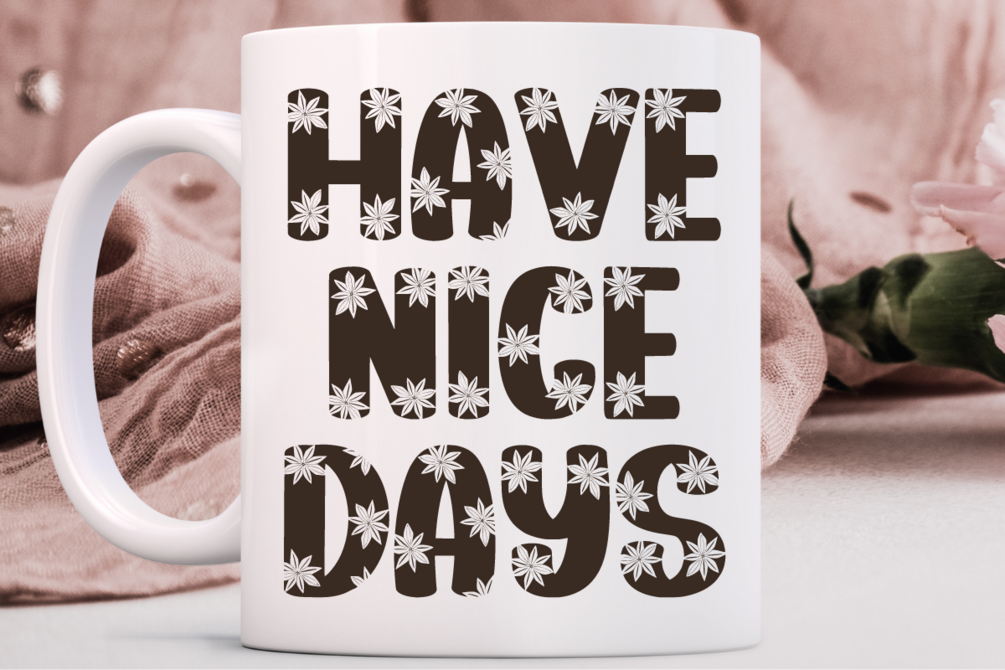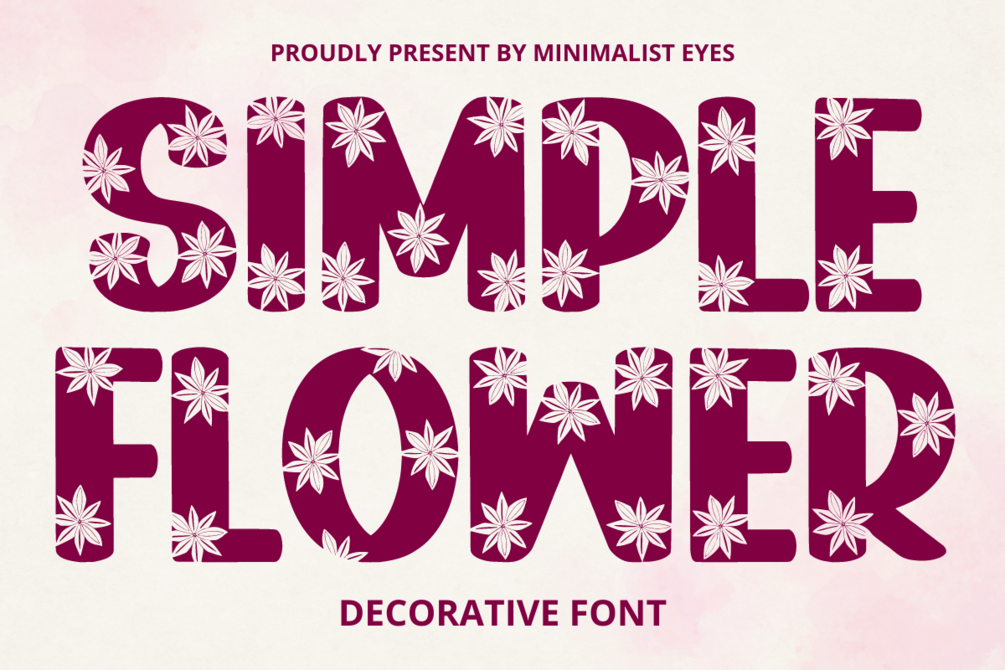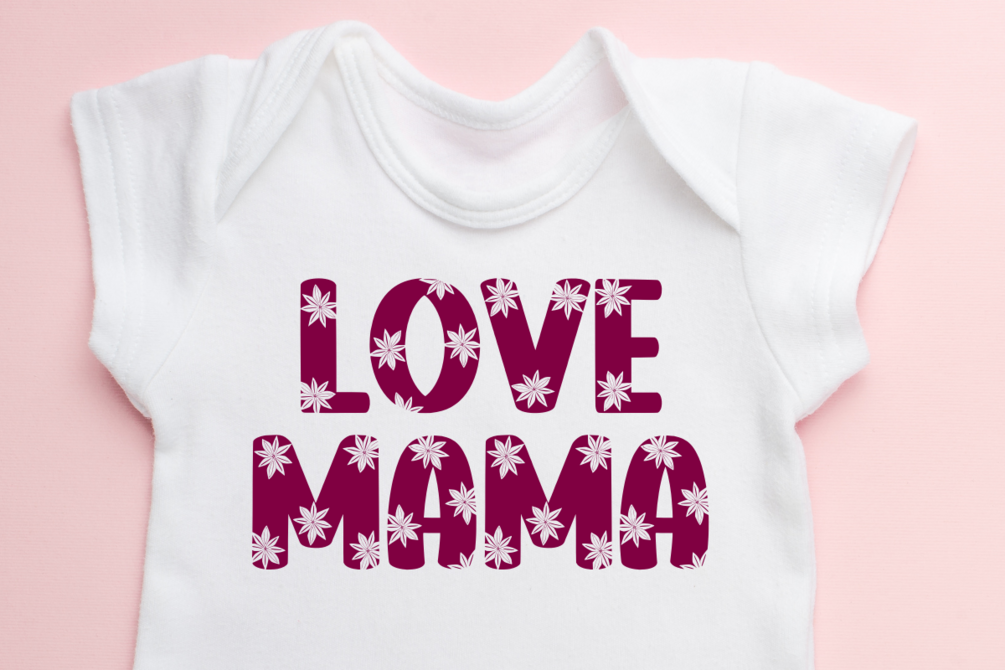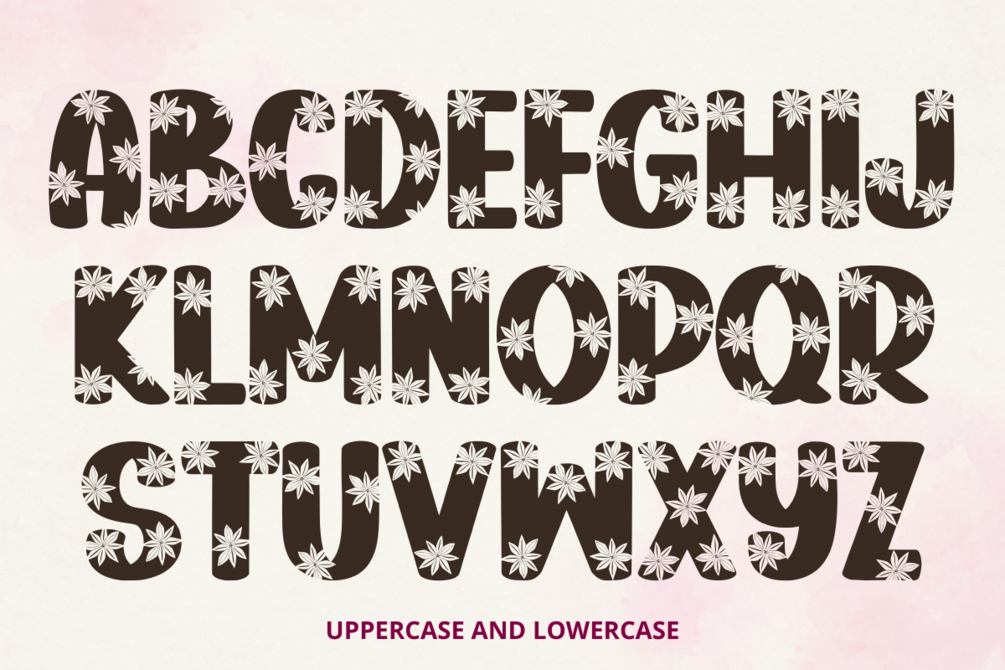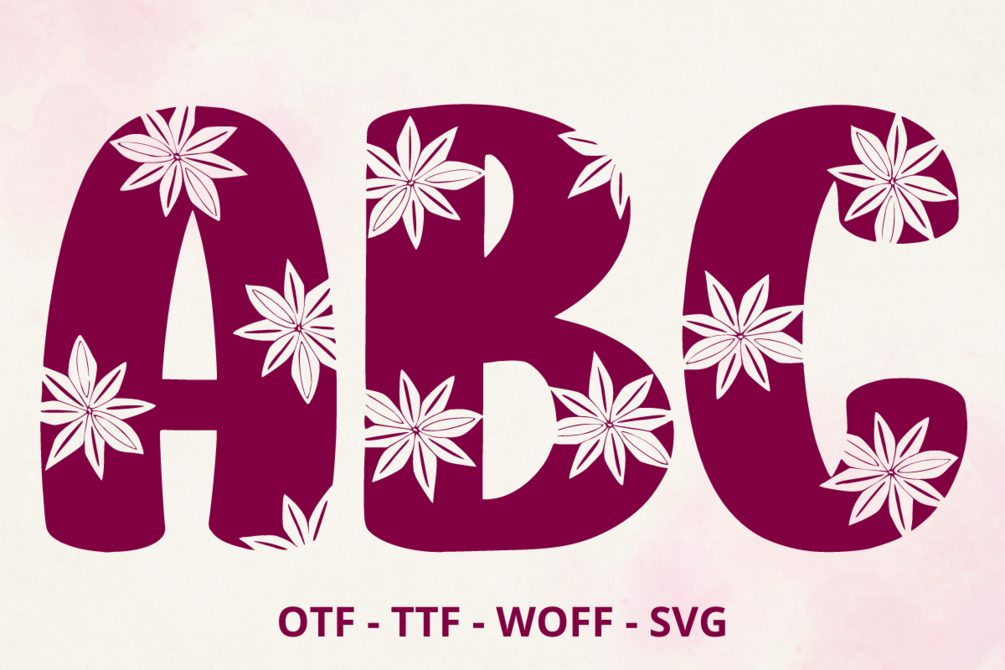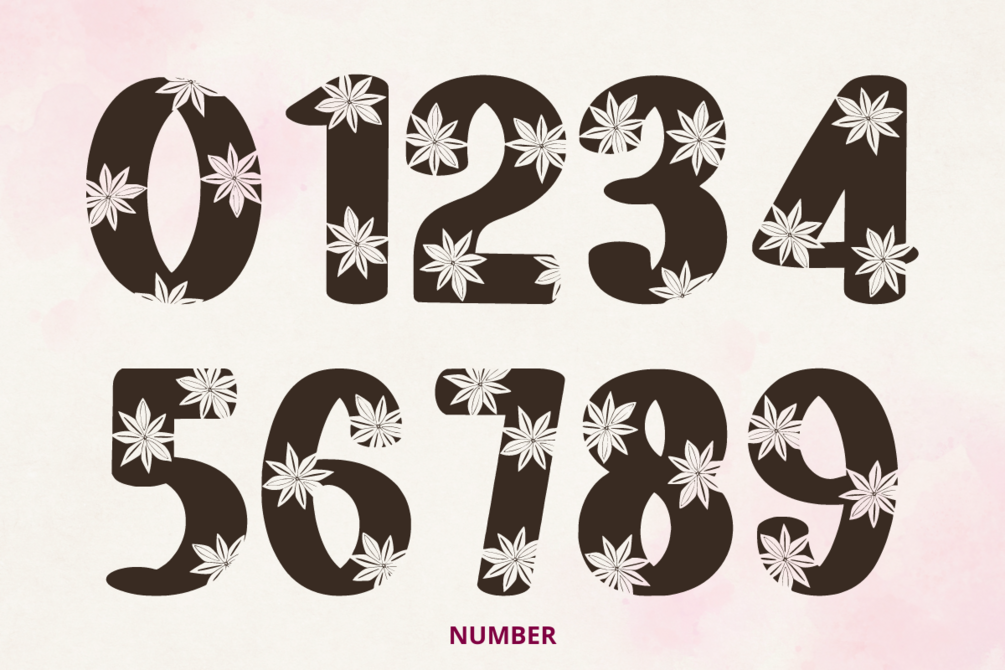
Simple Flower - Decorative Font
Simple Flower Font is cute for Craft lovers and suitable for kids. This font is bold, offering support for all English characters for display fonts. It can be used for any design project, for example. posters, t-shirts, mugs, kids’ projects, planners, stickers, home decor, etc.